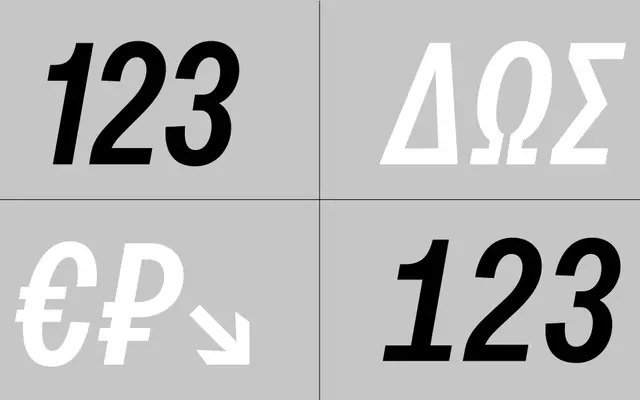
Oceanic Grotesk Condensed
Oceanic Grotesk Condensed specimen from Interval Type
A condensed grotesque drawn as a sans companion to the Oceanic serif families, covering six weights from Light to Poster with matching italics and a variable font format.
Designed to sit alongside the Oceanic and Oceanic Text serif families, the condensed grotesque shares identical vertical metrics with Oceanic Text for clean mixing in running text or display settings. The design takes mid-20th-century modernist grotesque conventions as its reference point, keeping contrast low and construction simple. Twelve styles span Light to Poster, all with matching italics, and a variable font is included for desktop and web use.
A mid-20th-century modernist grotesque, explicitly designed around neutrality and simplicity as a sans companion to a serif family with Bodoni and Scotch Roman influences.